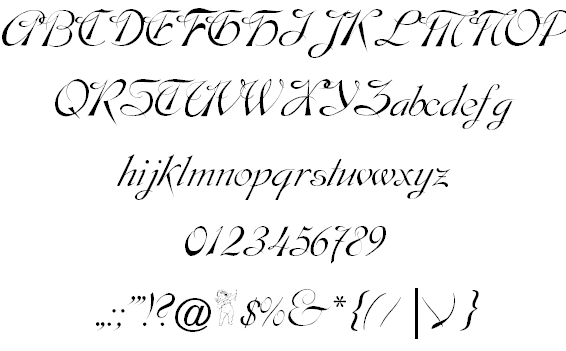
Free Dobkin Script Font
We're glad to feature this adorable free dobkin script font. Font Space has created this amazing and beautiful font. This is absolutely fancy font so you can easily make world-class designs.